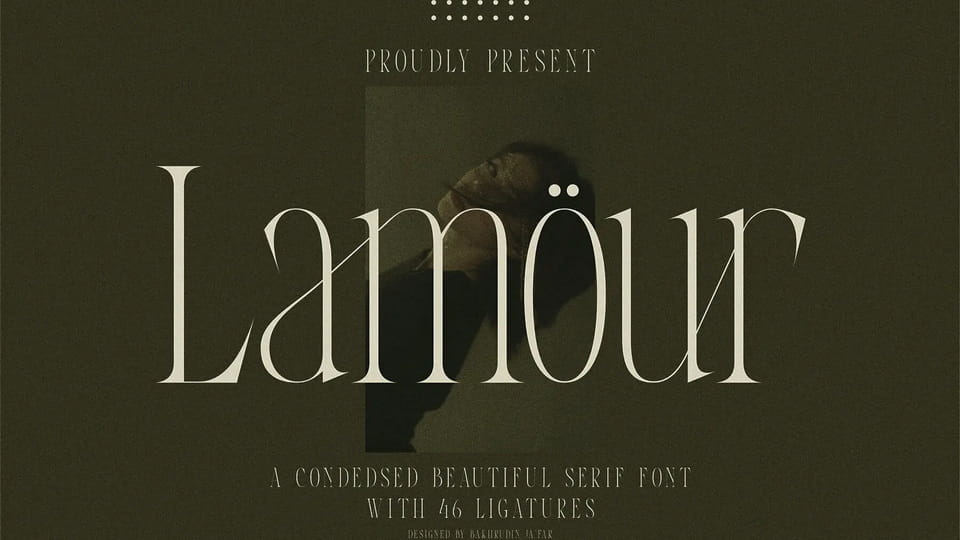
Download Lamour font, a condensed serif typeface with a luxurious style designed very neatly and cleanly. Lamour has the meaning of love which is highly appreciated and should be held in everyone’s heart as this font concept is made with love.